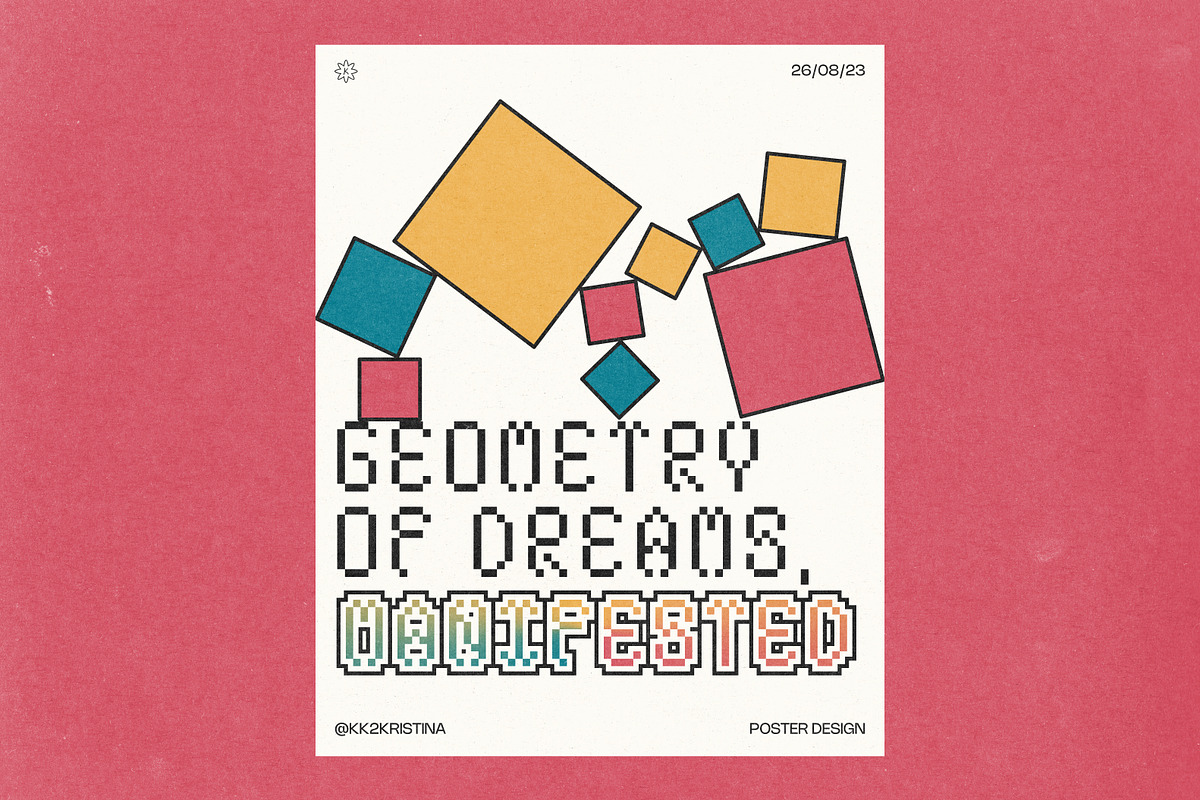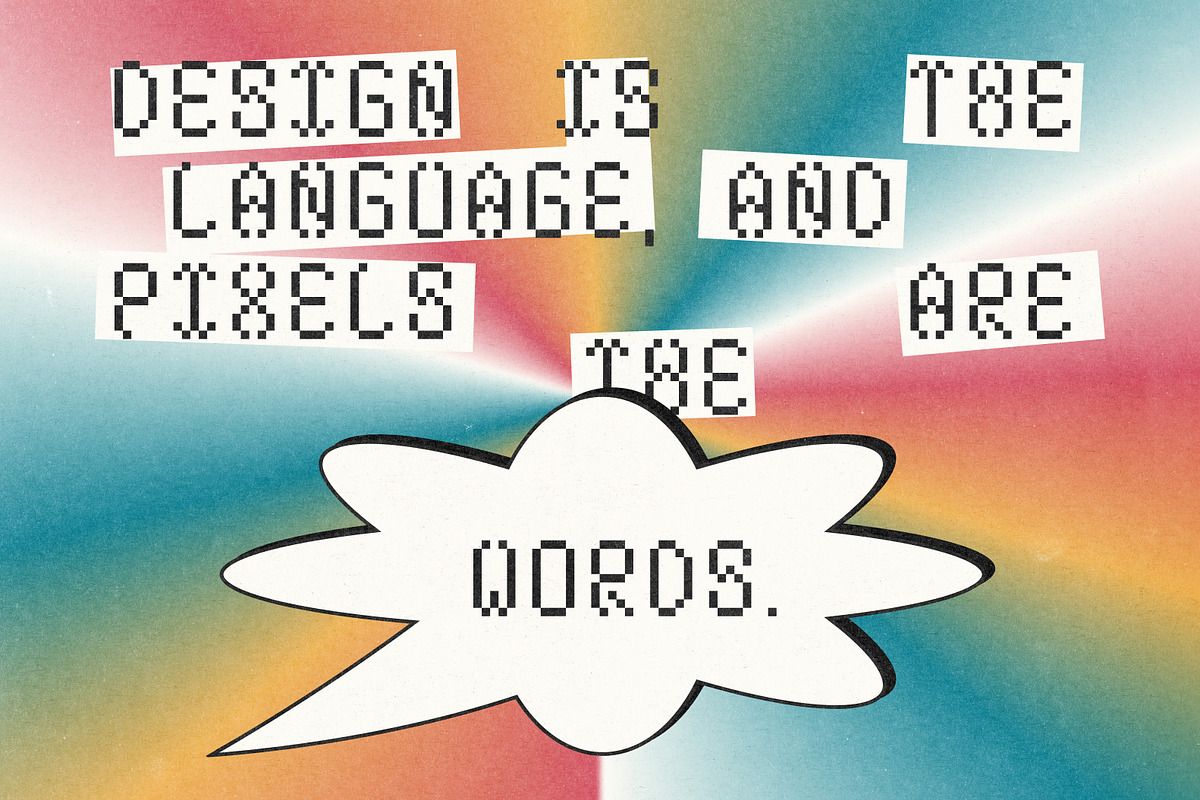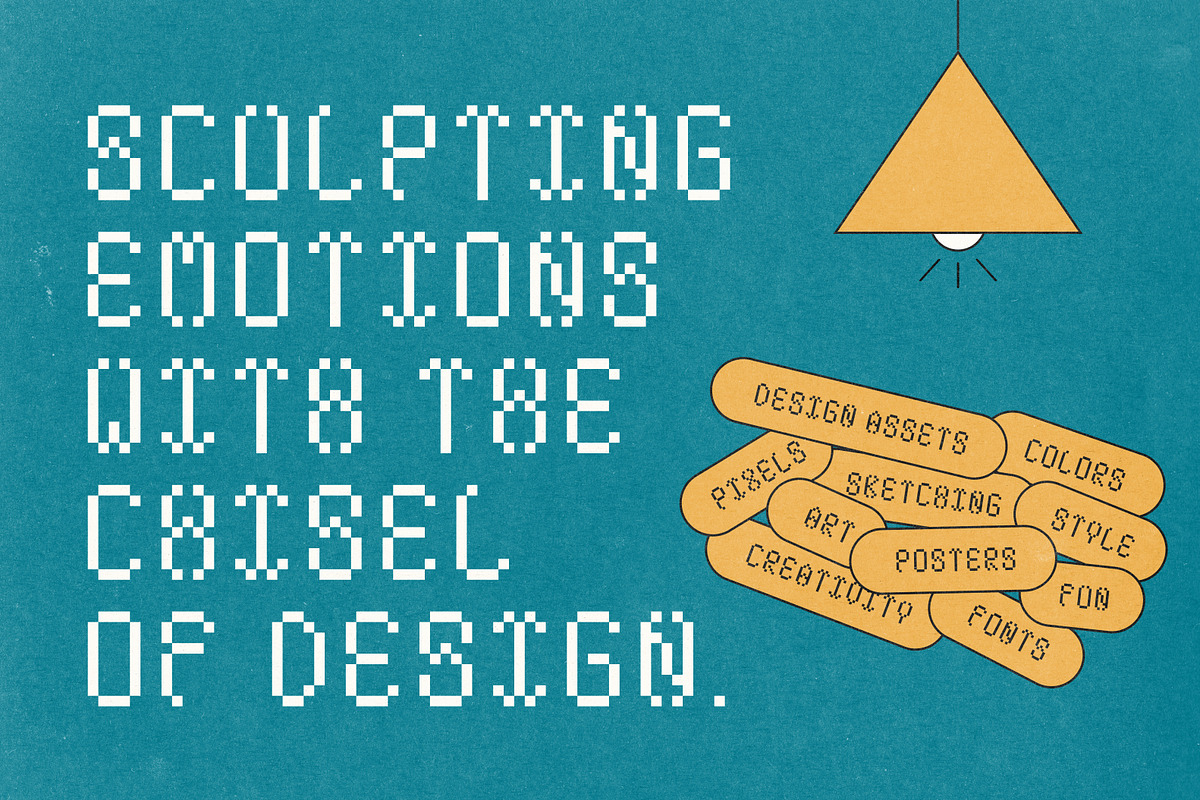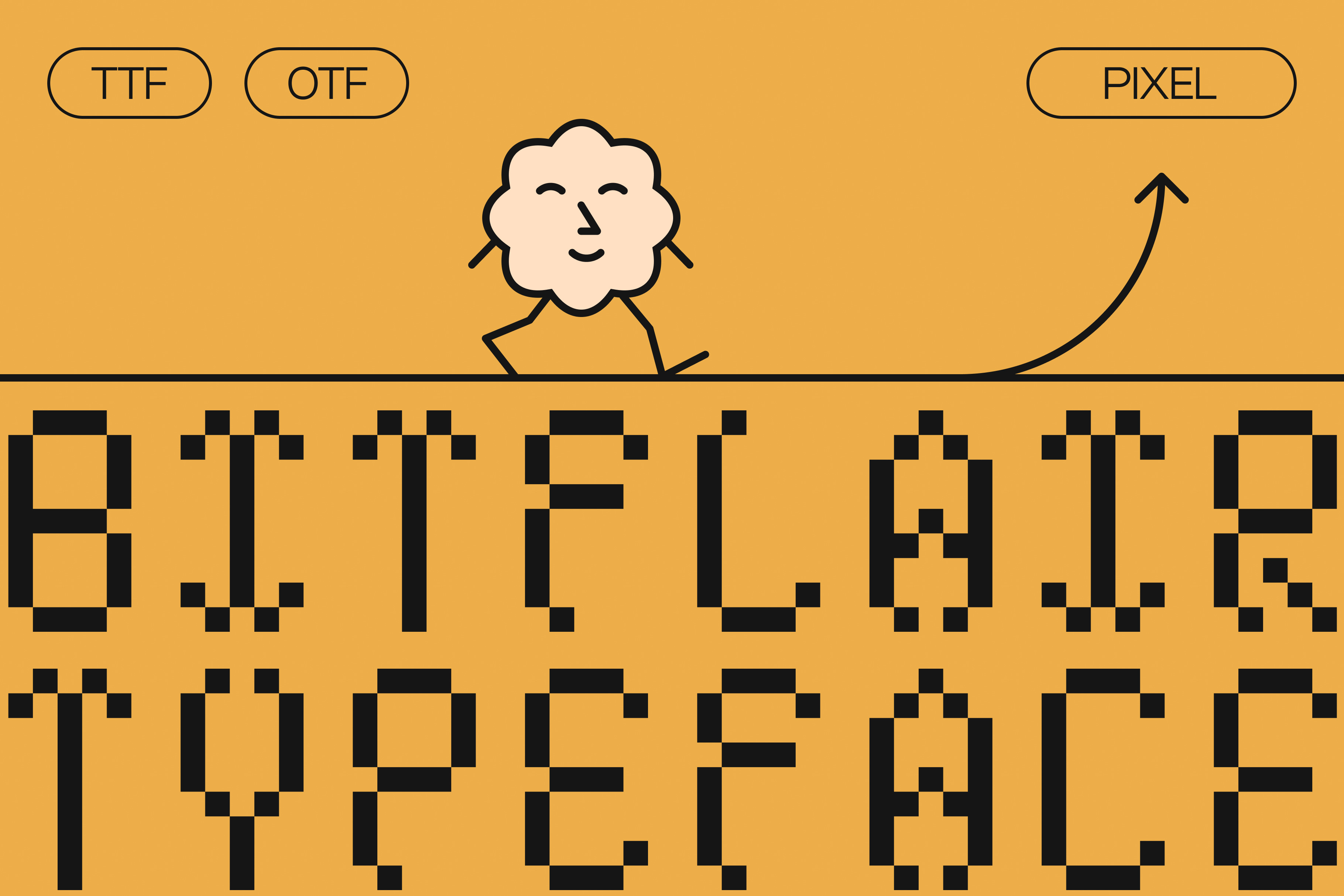
BITFLAIR Typeface Pixel Font
Introducing the Bitflair Typeface Display Font – Where Every Pixel Tells a Story!
Dive into the captivating world of pixel artistry with the Bitflair Typeface, a product born from a passion for creativity and innovation. Immerse yourself in the charm of meticulously crafted pixels, each character a canvas of its own. Whether you're a retro gaming enthusiast, a digital artist, or a designer seeking a unique flair, Bitflair Typeface is your canvas to pixel perfection!